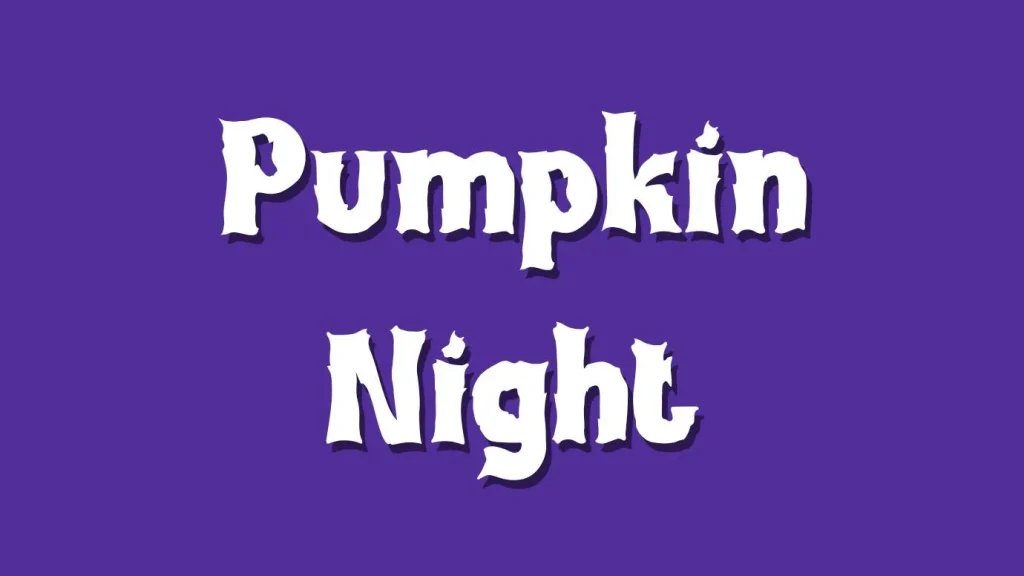
Pixesia Studio created this fancy design. This typeface pattern is flawless for each design so that demands fun and an extraordinary feel. Pumpkin Night Font contains special symbols, this lettering style is ideal for headings, logos, and other imaginative projects.
If you’re looking for a fun and remarkable font, this typeface is the ideal choice. This lettering type comprises an equally unique and bold appearance, making it perfect for any project that requires special attention.
The text style is flawless as long as each design demands a fun and unusual feel. There are a variety of ways to use this style for any design.
Pumpkin Night Font Preview
Using Pumpkin Night Font
This typeface corresponds to often utilized by creators to create their designs look lovely. Because the look is extremely attractive. It is extensively utilized to create amazing backgrounds.
Marketing designs, posters, and emblems can be created by using this beautiful typeface. Whether you are designing captions, logos, or other display items, this typeface will serve you well. This typeface design can be made with a well and unique texture paired with encanto font.
This typeface is also appropriate for logo design projects involving individual information. This typeface has a traditional feel with a unique turn. You’ll be able to utilize this typeface as a copy-paste function.
It is often seen in marriage invitations, greeting postcards, banner titles, game titles, and unique content that demands an aesthetic understanding.